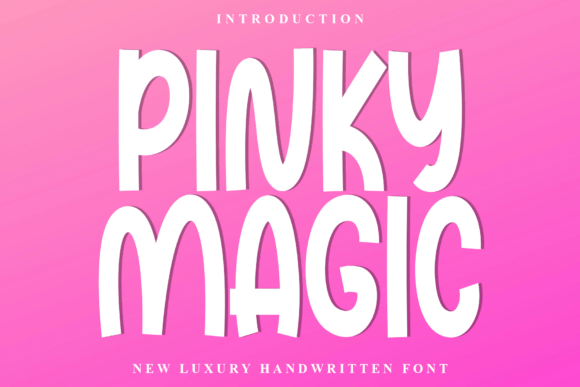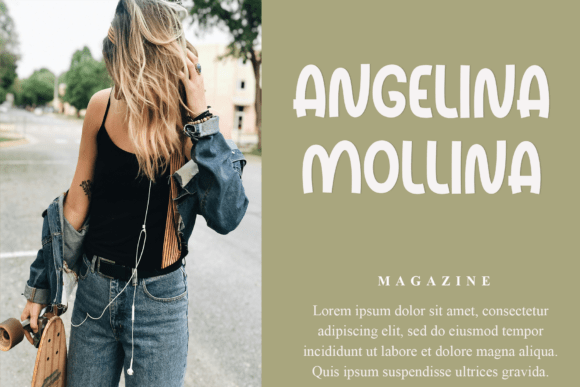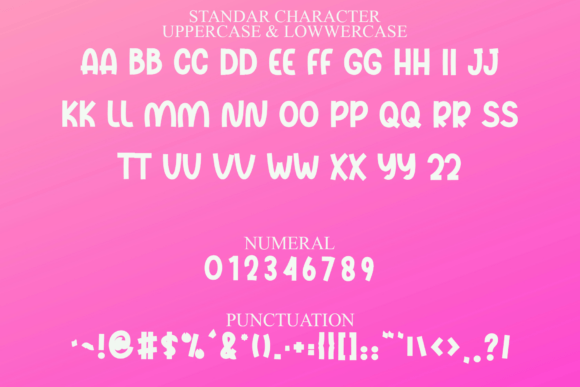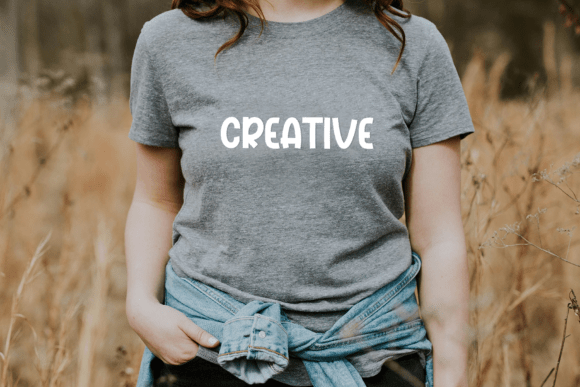
Pinky Magic Font: A Cute & Playful Display Font for Social Media Design
About the Pinky Magic Font
From logos to headlines, the Pinky Magic Font is the perfect choice for making a lasting impression. Pinky Magic is a casual and creative font that exudes warmth and friendliness. Its round, playful strokes create a relaxed and approachable feel, perfect for personal projects, invitations, and social media graphics. The font’s charming, hand-drawn aesthetic adds a fun and unique touch to any design.
Pinky Magic’s friendly, rounded forms work best in headlines, short text blocks, logos, and social media posts where its playful energy is an asset. It’s ideal for branding projects targeting a young, female demographic or businesses emphasizing warmth and approachability. Avoid using it for body text or lengthy paragraphs; its informal nature makes it unsuitable for large amounts of continuous reading.
Pair Pinky Magic with a clean sans-serif like Open Sans for a balanced contrast, or a more geometric sans-serif like Montserrat for a modern feel. For a touch of elegance, a subtle serif like Lora would complement its hand-drawn charm. Avoid pairing it with overly ornate scripts, which could clash with its casual aesthetic.
The font’s overall personality is undeniably cheerful and approachable, making it a strong choice for projects that require a lighthearted and friendly tone.
Pinky Magic Font Usage Examples
Pinky Magic Font Example